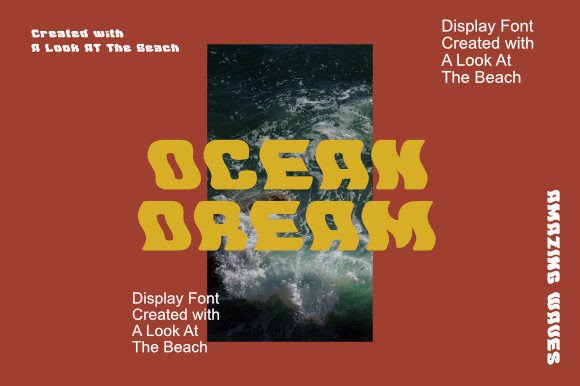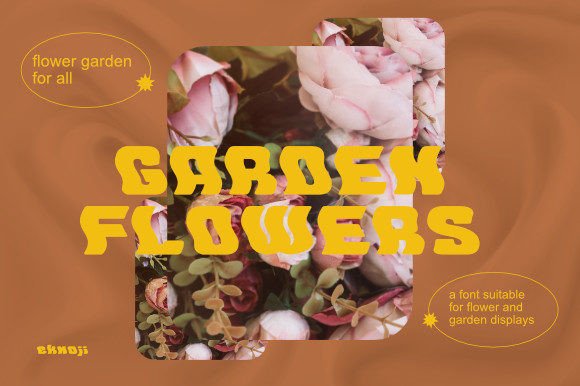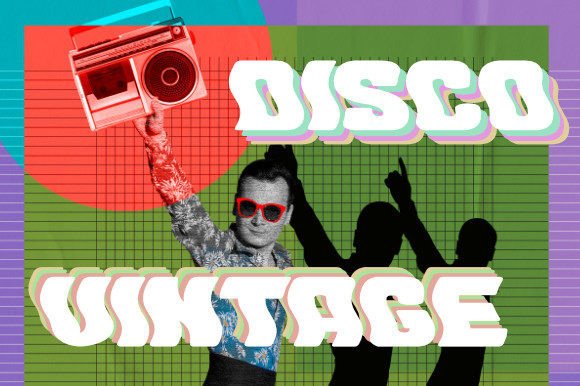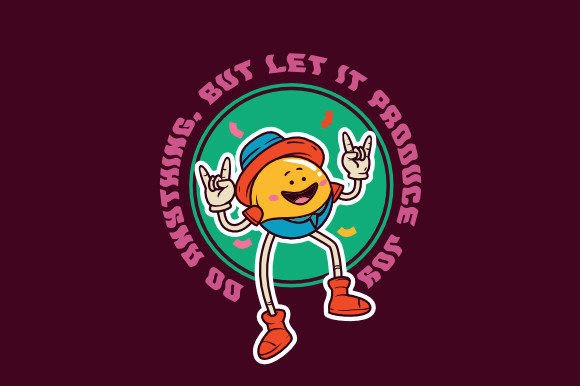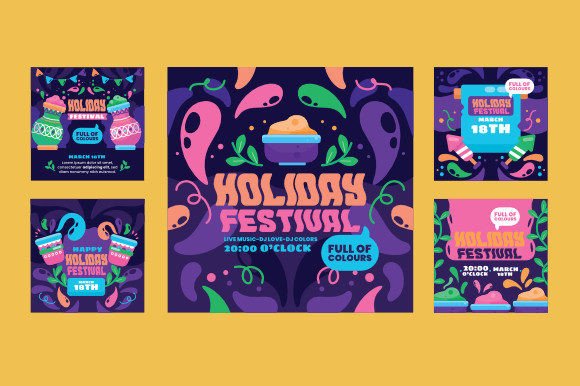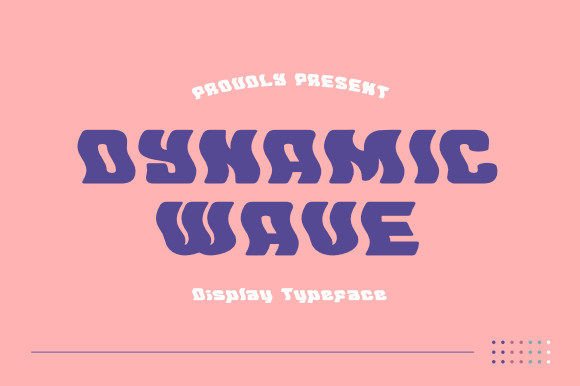
Introducing Dynamic Wave Font: The Groovy Display Font for Hippie Designs
Are you a designer or crafter looking for a font that captures the essence of the hippie era? Look no further than Dynamic Wave Font, a funky and wavy display font that’s perfect for creating retro and groovy designs. With its unique blend of playfulness and style, Dynamic Wave is sure to add a touch of nostalgia and whimsy to any project.
The Retro Vibe of Dynamic Wave Font
Dynamic Wave Font is inspired by the iconic typography of the 1960s and 1970s, with its wavy lines and carefree curves. The font’s retro vibe is reminiscent of classic hippie posters, psychedelic album covers, and vintage fashion ads. Whether you’re designing a logo, a poster, or a social media graphic, Dynamic Wave Font is the perfect choice for adding a dash of retro flair.
Key Features of Dynamic Wave Font
- Unique Wavy Design: Dynamic Wave Font features a distinctive wavy design that’s sure to grab attention. Its flowing lines and curves create a sense of movement and energy, making it perfect for designs that need to pop.
- Retro and Groovy Vibe: The font’s retro and groovy vibe is perfect for hippie-inspired designs, from psychedelic posters to vintage fashion ads.
- Highly Versatile: Dynamic Wave Font is suitable for a wide range of design projects, from logos and posters to social media graphics and craft projects.
- Easy to Read: Despite its wavy design, Dynamic Wave Font is surprisingly easy to read, making it perfect for headlines and titles.
Design Ideas with Dynamic Wave Font
Dynamic Wave Font is a versatile font that can be used in a wide range of design projects. Here are some ideas to get you started:
- Psychedelic Posters: Use Dynamic Wave Font to create eye-catching posters for music festivals, concerts, or art exhibitions.
- Vintage Fashion Ads: Add a touch of retro glamour to your fashion designs with Dynamic Wave Font.
- Hippie-Inspired Logos: Create a logo that’s perfect for a hippie-themed business or brand with Dynamic Wave Font.
- Craft Projects: Use Dynamic Wave Font to add a personal touch to your craft projects, from scrapbooking to card making.
Tips for Using Dynamic Wave Font
Here are some tips for getting the most out of Dynamic Wave Font:
- Use it as a Display Font: Dynamic Wave Font is perfect for headlines and titles. Use it to grab attention and add visual interest to your designs.
- Experiment with Colors: The font’s retro vibe is perfect for bright, bold colors. Experiment with different color schemes to find the perfect combination for your design.
- Pair it with Other Fonts: Dynamic Wave Font pairs well with a wide range of fonts. Try pairing it with a clean sans-serif font for a striking contrast.
Dynamic Wave Font is a unique and versatile font that’s perfect for designers and crafters looking to add a touch of retro flair to their projects. With its wavy design and groovy vibe, it’s sure to grab attention and add visual interest to any design. Whether you’re creating psychedelic posters, vintage fashion ads, or hippie-inspired logos, Dynamic Wave Font is the perfect choice. So why wait? Download Dynamic Wave Font today and start creating your own groovy designs!